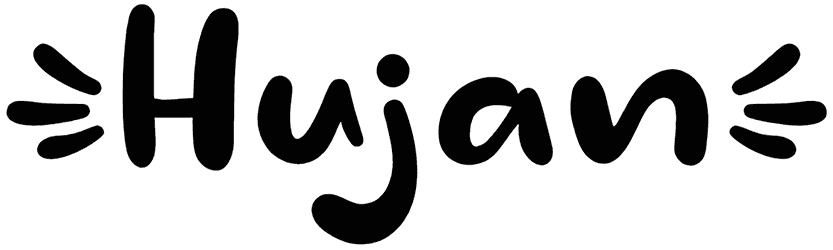
Hujan Font
If you are looking for a childish sense in your content, you should look at our cartoon font category. One of the items that you will find is Hujan, a beach font with chubby letters to give a cute vibe to your project.
Using it is gonna give you that pleasure you were wondering about because you are gonna get a full package of characters containing both the uppercase and lowercase of the alphabet, the numbers, and the punctuation marks.